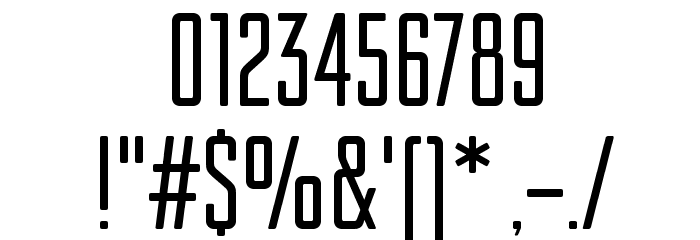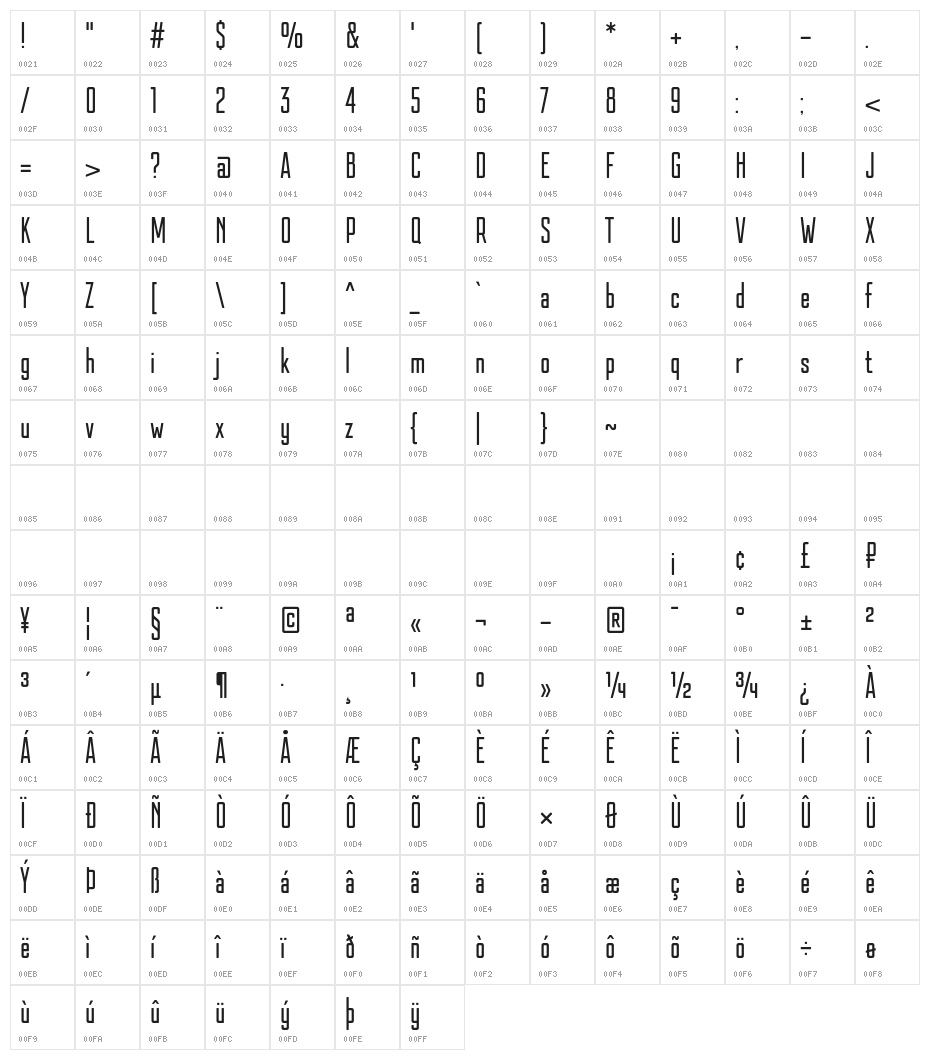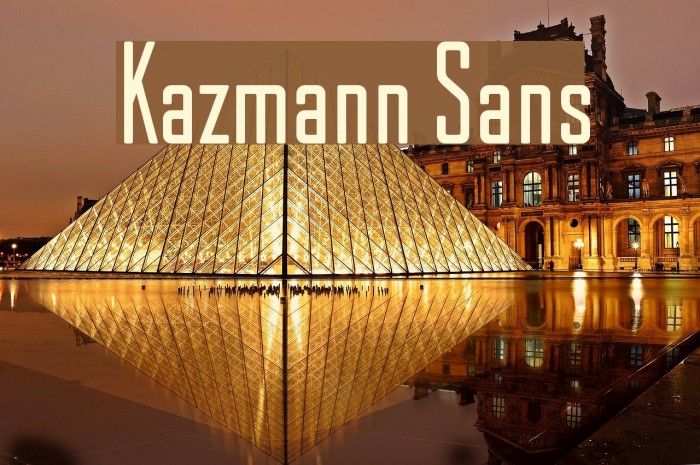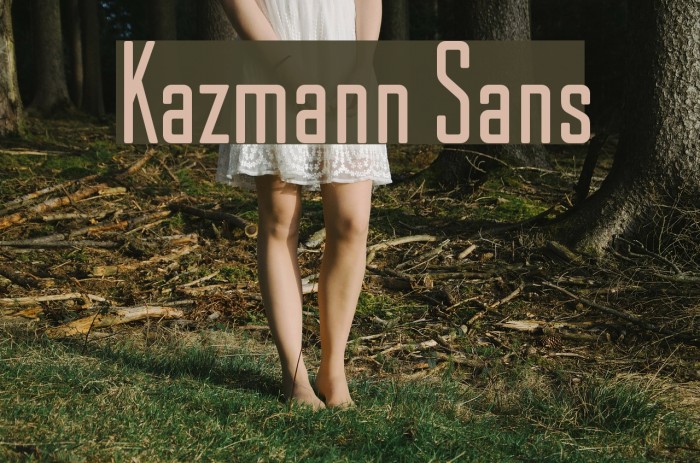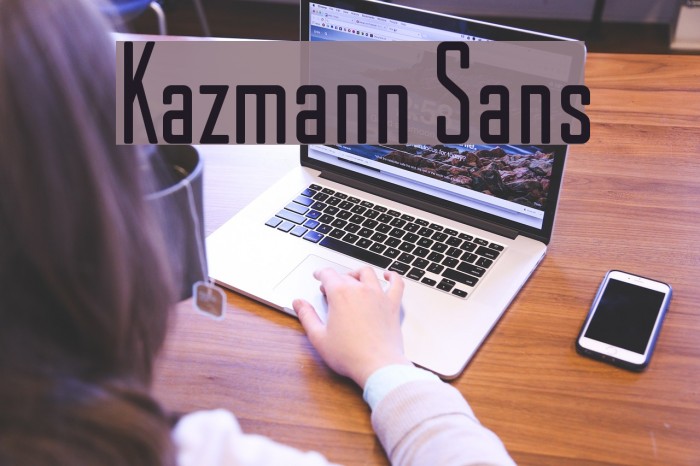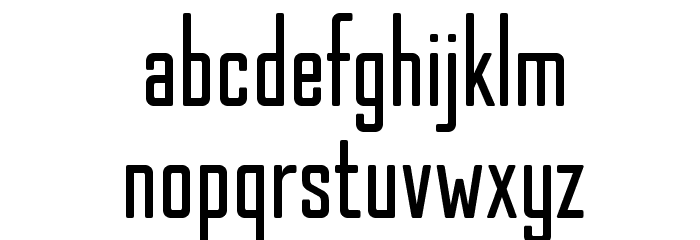
Kazmann Sans Font
Kazmann Sans Description
This font features a clean and modern sans-serif style with a geometric structure. The characters are tall and narrow, giving it a sleek and contemporary appearance. The uppercase letters are uniform in height, while the lowercase letters maintain a consistent baseline, contributing to a harmonious look. The numerals are clear and easy to read, matching the overall aesthetic of the font. Special characters are well-defined, enhancing the font's versatility. The design is minimalistic, making it suitable for a wide range of applications.
| Use Case | Headlines, Logos, Editorial design |
| Proposed Projects | Ideal for branding, advertising, and editorial design projects that require a modern and clean aesthetic. |